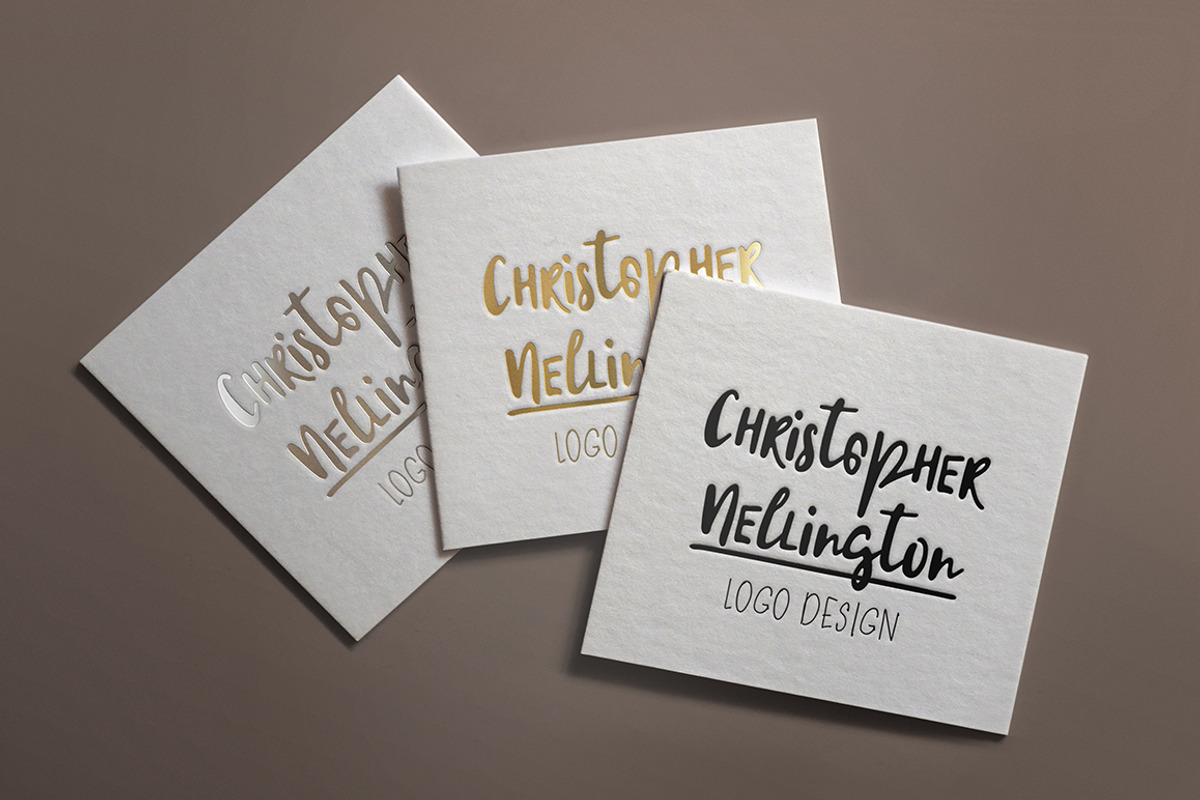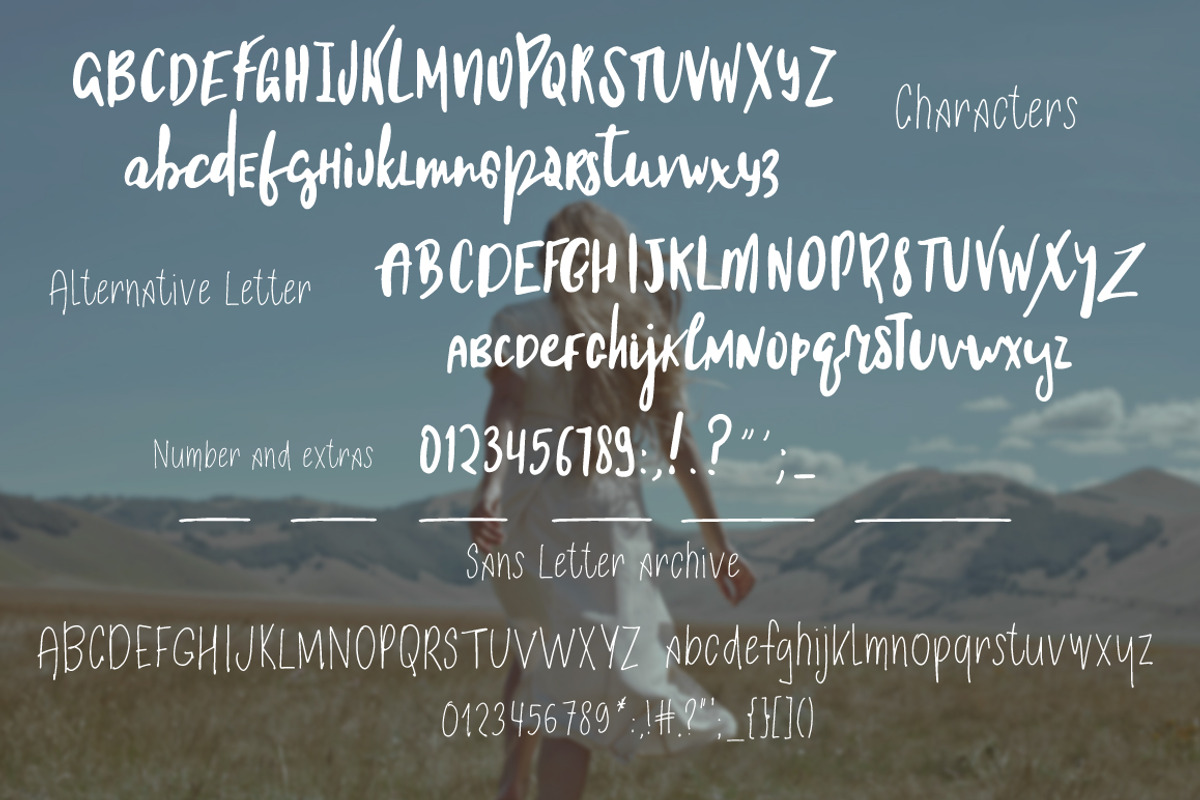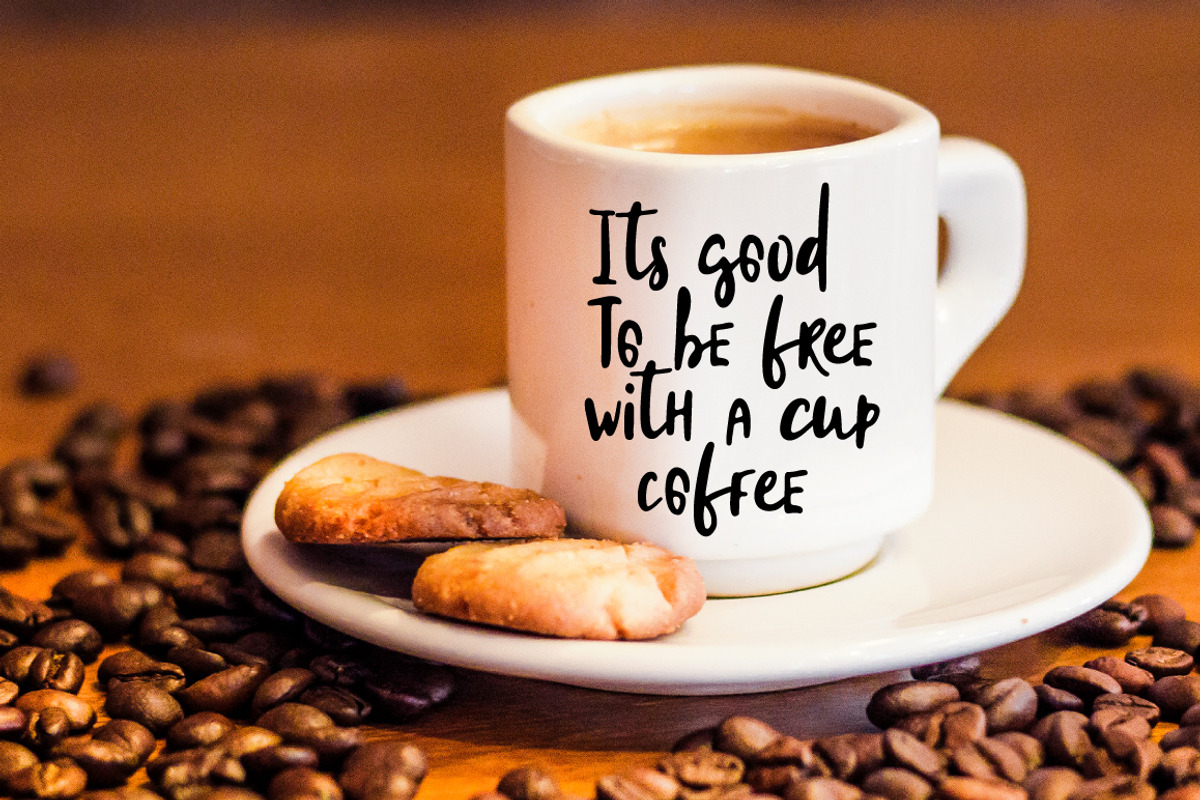
Flowers In December Font Duo
Flowers In December Font Duo by Creamy Script is a font selected for branding, posters, packaging, typography.
Why Flowers In December Font Duo is worth a look
Flowers In December Font Duo by Creamy Script fits naturally into Branding, posters, packaging, typography.